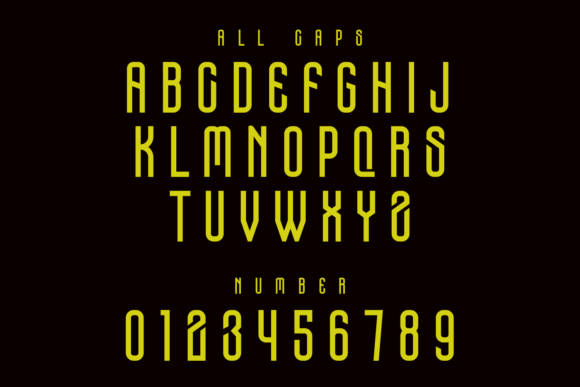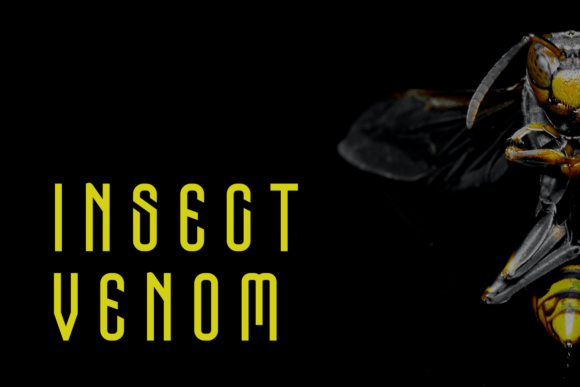
Girode Font: A Cool and Unique Sans Serif Font for Your Creative Projects
In the world of typography, a good font can make all the difference in the success of a design project. Whether you’re a graphic designer, a crafty DIY enthusiast, or a digital artist, having the right font can elevate your work from ordinary to extraordinary. If you’re on the hunt for a cool and unique sans serif font that can add a touch of sophistication to your creations, look no further than Girode Font.
What is Girode Font?
Girode Font is a modern sans serif font that has been meticulously crafted to provide a clean, elegant, and highly legible typographic experience. Its sleek lines, precise curves, and carefully considered letter spacing make it an excellent choice for a wide range of design applications, from digital media and branding to print materials and craft projects.
Key Features of Girode Font
• Unique and Cool Design: Girode Font boasts a distinctive and stylish design that sets it apart from more traditional sans serif fonts. Its unique character will add a fresh and modern touch to any project.
• Highly Detailed: The font is crafted with attention to detail, ensuring that every letterform is precise, clean, and aesthetically pleasing.
• Versatile: Girode Font is incredibly versatile, making it suitable for a variety of design projects, including logos, headings, body text, and more.
• Easily Readable: Despite its stylish appearance, Girode Font remains highly legible, even at smaller sizes, making it perfect for both digital and print applications.
Why Choose Girode Font?
There are countless fonts available to designers and crafters today, but Girode Font stands out for several reasons:
• Enhance Your Creations: With Girode Font, you can add a professional and modern touch to your designs, helping them to stand out in a crowded marketplace.
• Time-Saving: The font’s versatility means you can use it across multiple projects, saving you time and effort in searching for different fonts for different tasks.
Who Can Benefit from Girode Font?
Girode Font is an excellent addition to the toolkit of:
• Graphic Designers: Looking for a modern and clean font for branding, advertising, and digital media projects.
• Digital Artists: Seeking unique typography for their artwork, blogs, or social media.
• Crafters and DIY Enthusiasts: Creating handmade cards, journals, or crafts that require a personal and stylish touch.
• Web Designers: Needing a sans serif font that is both stylish and legible for website design.
How to Get the Most Out of Girode Font
To maximize the potential of Girode Font, consider the following tips:
• Experiment with Sizes: Play around with different font sizes to see how Girode Font looks in various contexts.
• Pair it Wisely: Don’t be afraid to pair Girode Font with other fonts to create visual interest and hierarchy in your designs.
• Adjust Letter Spacing: Fine-tune the letter spacing to ensure optimal readability and aesthetic appeal.
Girode Font is a remarkable sans serif font that offers a perfect blend of style, versatility, and legibility. Whether you’re working on a professional design project or a personal craft, this font is sure to enhance your creations and make them stand out. With its unique design, detailed craftsmanship, and wide range of applications, Girode Font is an invaluable asset for any designer or crafter looking to elevate their work.